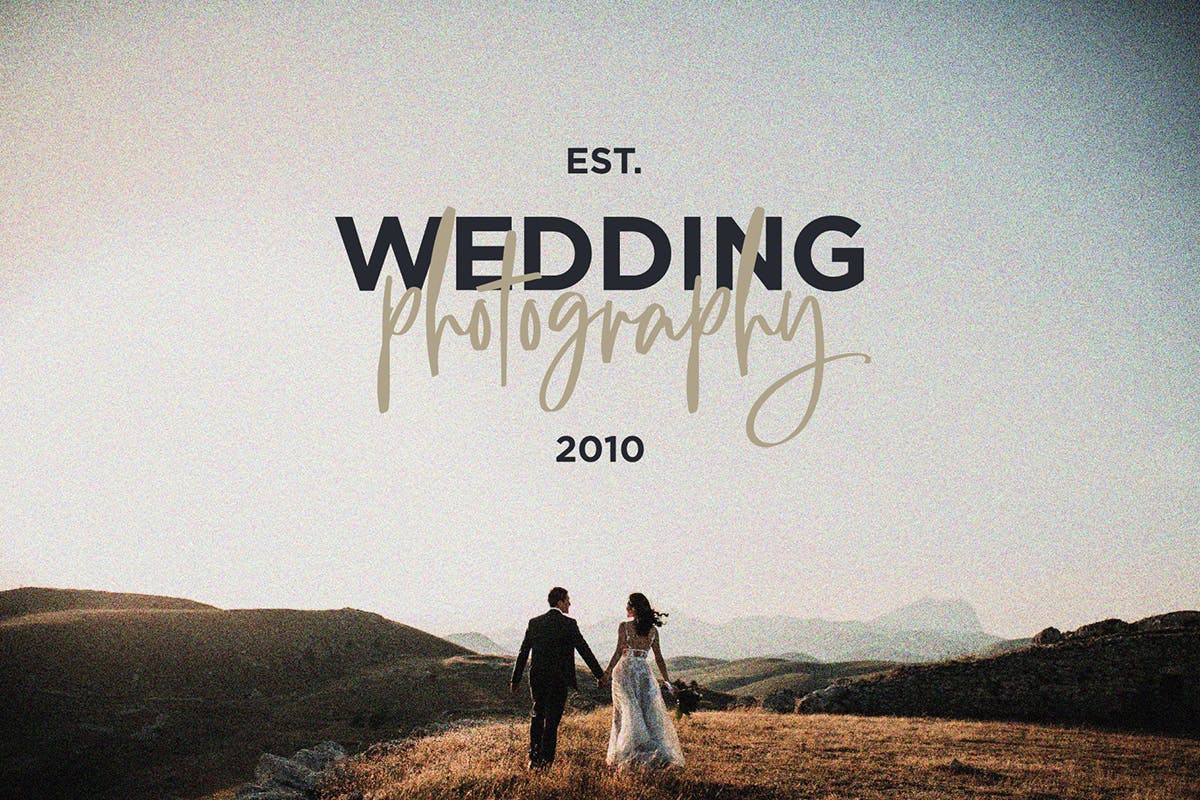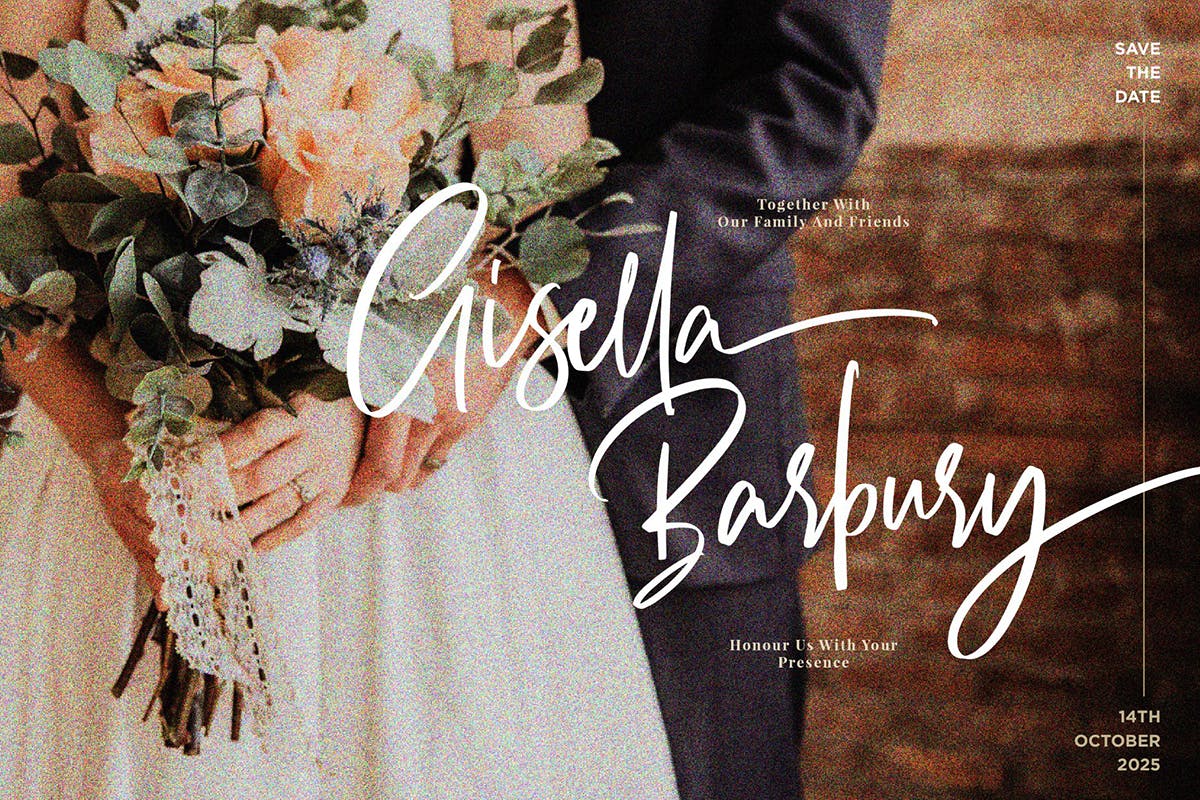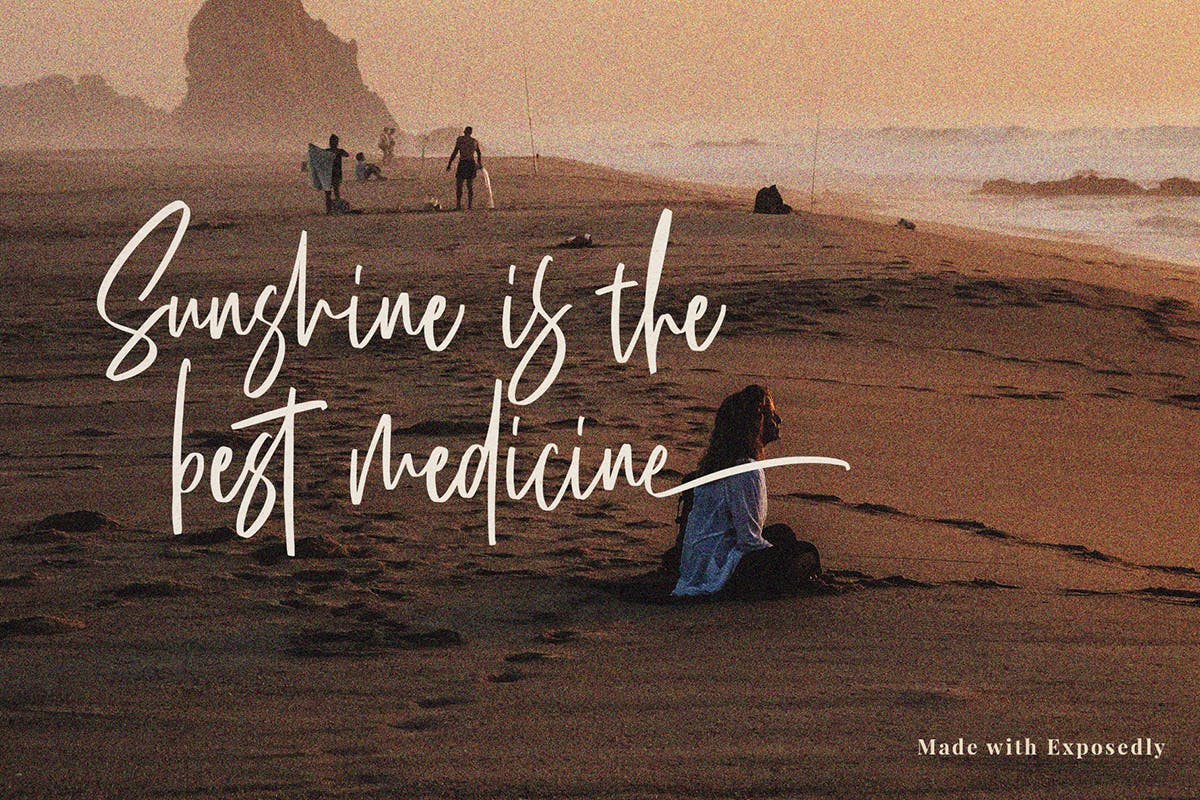
Free Exposedly Script Font
Free Exposedly Script Font is a font with a luxury signature style. It is useful for your projects such as branding, wedding invitation, logo, packaging, and more. This font has some awesome glyph style that you can change based on your needs. However, this font is only available for personal license.